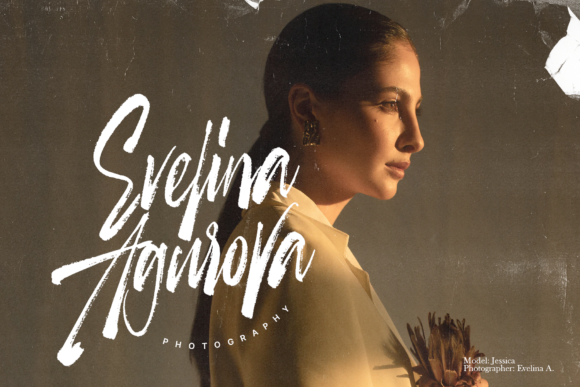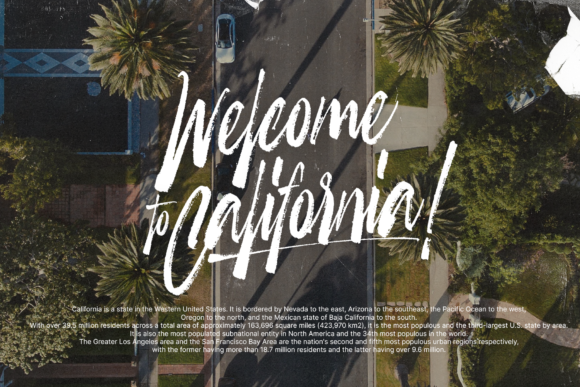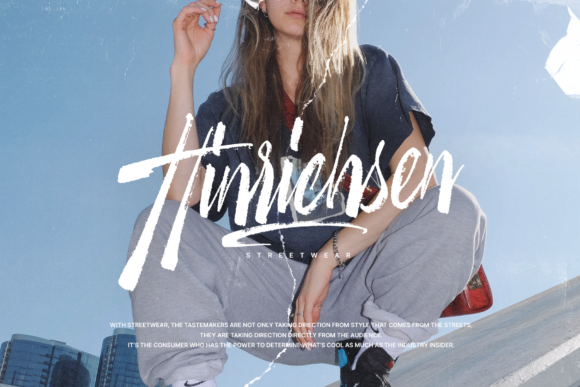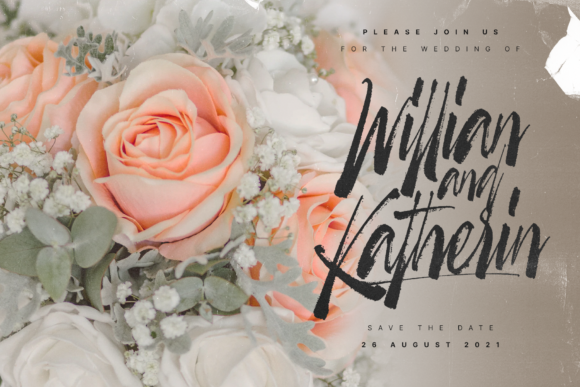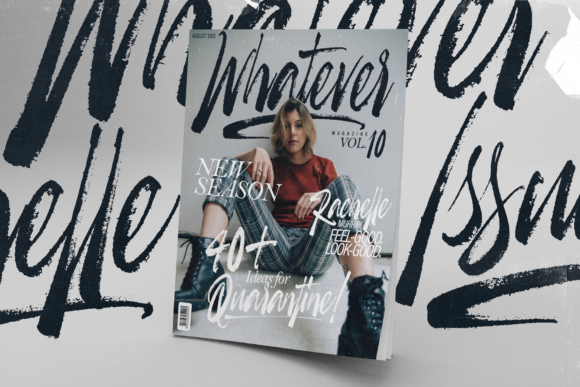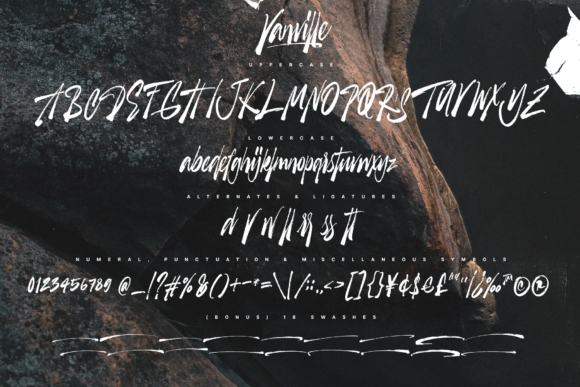
Vanville Script Font
About Vanville Script Font
Vanville Script is a lovely brushed script font featuring charming, playful characters that seem to dance along the baseline. Add this font to your most creative ideas, and notice how it makes them stand out!